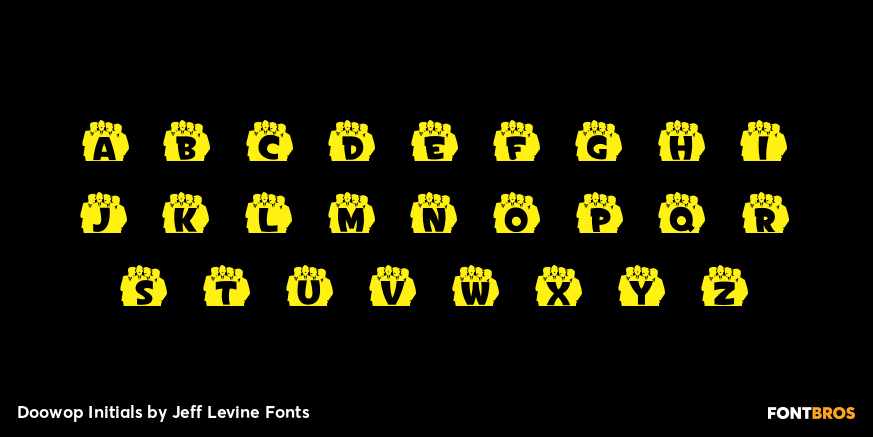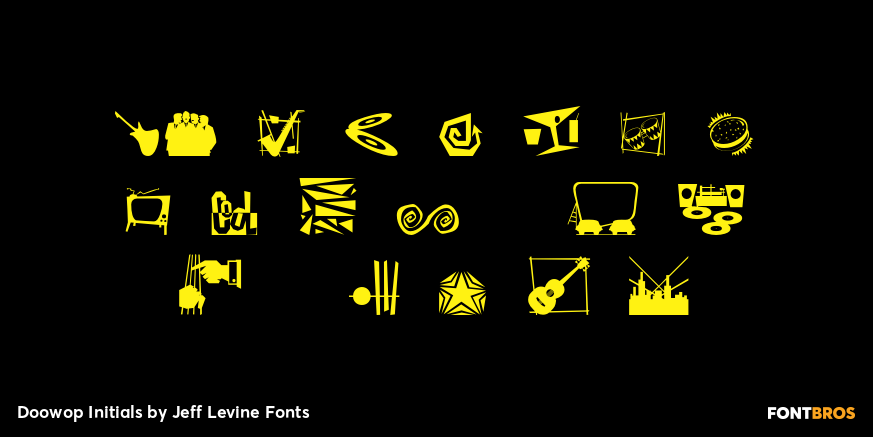
Doowop Initials
Here's a companion font for the fun and playful typeface Doowop JNL from Jeff Levine.
Doowop Initials JNL features an initial over the silhouette of a 1950s-style singing group. For an extra bonus, there's a handful of 50s-style icons on the number keys in both the upper and lower shift positions.